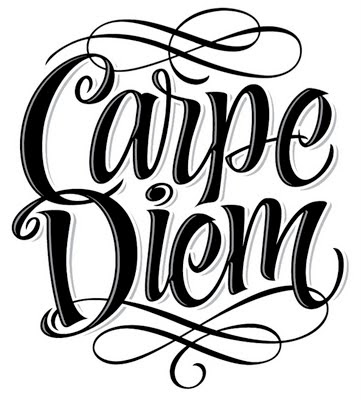
Carpe Diem was a cool project and the lettering is now on apparel at Random Objects.
This Project was recently featured in InPrint showing all the concept sketches. When I letter in vector format I start with single weight strokes to develop structure of the letters including spacial relationships. This is no different than drawing with a pencil or marker on a sheet of tissue paper. A lot of trial and error happens in this stage.
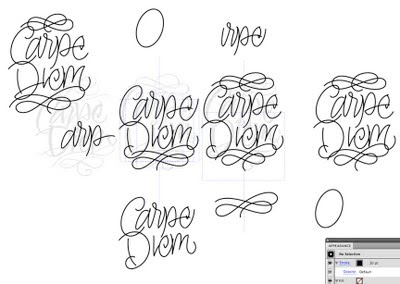
Once the composition reads properly I will shape each letter with bezier curves to create the desired thicks and thins.